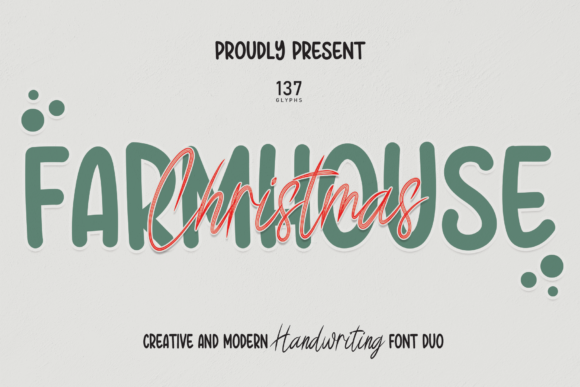
Deck the Halls with Holiday Cheer: Introducing Farmhouse Christmas Font
There’s nothing quite like the magic of Christmas morning, surrounded by twinkling lights, warm cookies, and the sound of carolers outside. As a designer, you’re no stranger to the thrill of creating something special – but have you ever struggled to find the perfect font to capture the essence of the holiday season?
Enter Farmhouse Christmas Font, a stunning duo of script and sans serif styles designed to bring a touch of rustic charm to your projects. This comprehensive font is perfect for giving your designs a branded but friendly feel, making it ideal for holiday cards, social media graphics, and more.
Whether you’re a seasoned designer or just starting out, Farmhouse Christmas Font is a valuable addition to your toolkit – and with its two included styles, you can create a look that’s uniquely yours. So why settle for a generic font when you can deck the halls with this festive and fun duo?
Farmhouse Christmas Font Key Features
- Unique Characteristics: Features a distressed, vintage-inspired design with a rustic feel, perfect for creating a cozy and welcoming atmosphere in holiday-themed designs.
Farmhouse Christmas Font Review
I recently had the chance to work with the “Farmhouse Christmas Font” and I must say it’s a mixed bag. On the one hand, I think the font does capture the essence of a cozy farmhouse Christmas, which is perfect for holiday-themed designs.
- The font is highly customizable, with plenty of options for adjusting the size, color, and style.
- The design is rustic and charming, with a nice balance of elegance and playfulness.
- The font is well-suited for use in logos, titles, and other prominent design elements.
⚠️ On the other hand, there are some limitations to consider:
- The font may not be suitable for use in body text or large blocks of text, as it can be difficult to read at smaller sizes.
- The design may not be to everyone’s taste, as it’s quite specific to a certain aesthetic.
Overall, I think the “Farmhouse Christmas Font” is a solid choice for designers who are looking for a unique and eye-catching holiday-themed font. However, it’s not a one-size-fits-all solution, and you should carefully consider the design requirements and limitations before using it in your project.
For optimal results, use the Farmhouse Christmas Font in conjunction with rustic or vintage-themed designs.
Experiment with different font sizes, colors, and styles to create a unique and eye-catching look.
The Farmhouse Christmas Font is ideal for:
Christmas card designs and invitations
Rustic-themed holiday party decorations
Vintage-inspired holiday advertisements